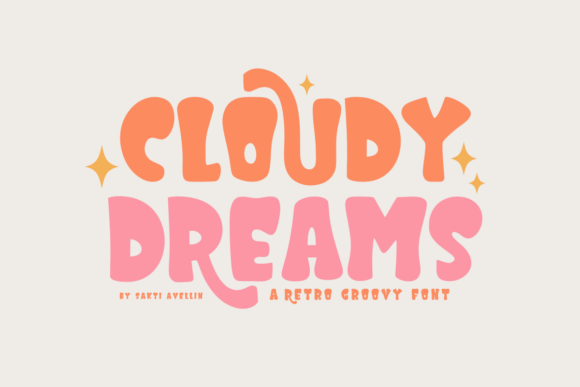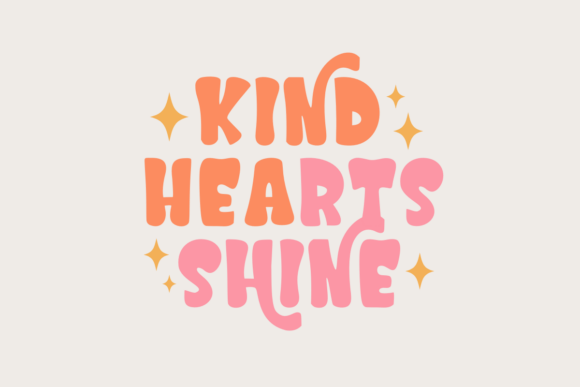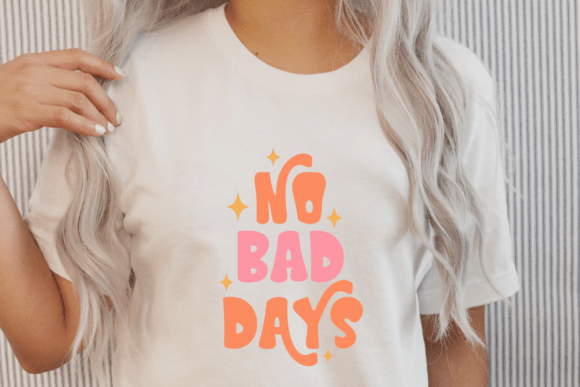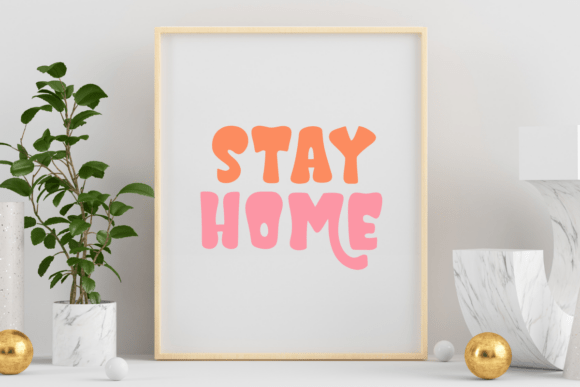
Cloudy Dreams Font: Groovy Retro Typography for T-Shirts & Cricut Projects
About the Cloudy Dreams Font
Elevate your designs with Cloudy Dreams Font, a font that combines sophistication with readability. Unleash your creative spirit with Cloudy Dreams, an exquisitely groovy retro font. The perfectly styled Cloudy Dreams works magic for crafting inspiring quotes and establishing distinct branding. With its retro charm, it stands out on t-shirts, posters and an array of merchandise such as tote bags, mugs, and hats. Even home décor items like doormats, pillows, and tumblers radiate a unique flair with the Cloudy Dreams font. Dive into your other crafts and let your imagination fly high with Cloudy Dreams !
Cloudy Dreams Font Usage Examples
Cloudy Dreams Font Example